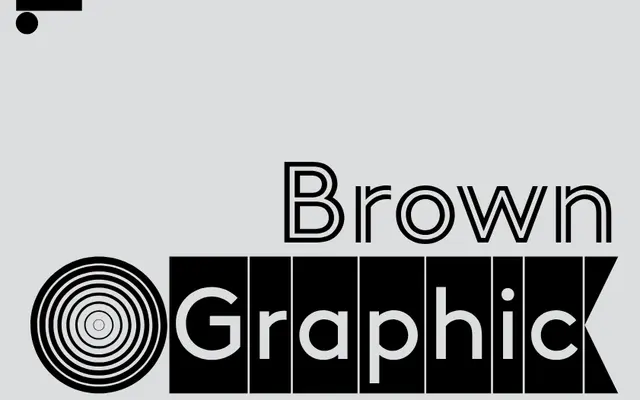
LL Brown Graphic
Lineto · Aurèle Sack · 2019
A set of decorative display cuts extending LL Brown into Inline, Shaded and Cameo variants, with a variable Cameo for screen use.
Designed by Aurèle Sack and released in 2019, Brown Graphic offers four Inline cuts, a Shaded cut and a Cameo cut with a full set of geometric shapes, all derived from the geometric sans foundation of LL Brown. The Cameo variant is also available as a variable font, inviting animated or parametric use on screen. The package draws on a tradition of decorative companion styles common to geometric typefaces of the 1930s, positioning itself for branding, editorial display and poster work.
Brown Graphic extends the geometric sans foundation of LL Brown into decorative display variants — Inline, Shaded and Cameo cuts — intended for branding and headline use rather than text setting.